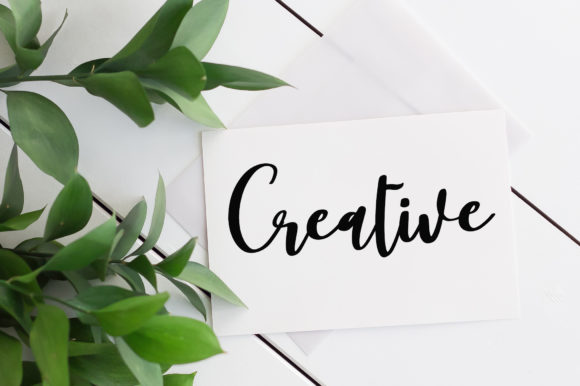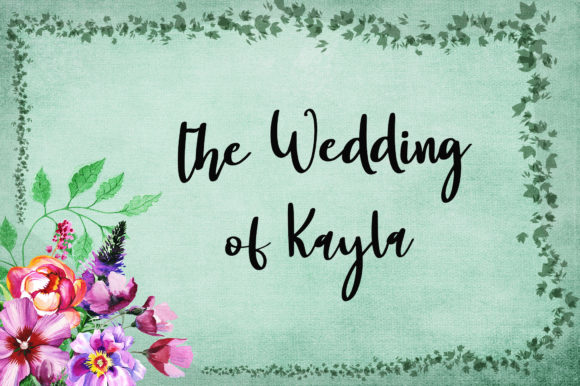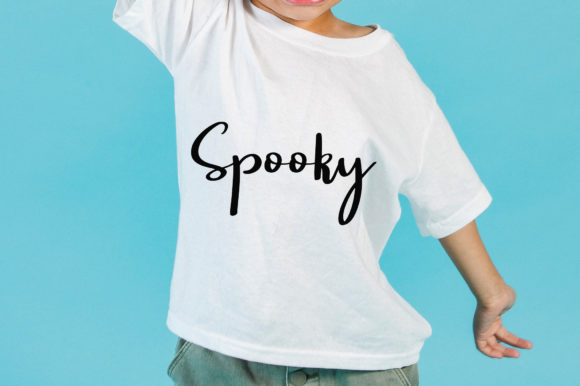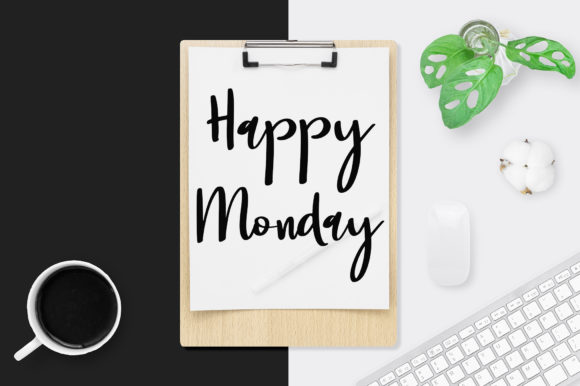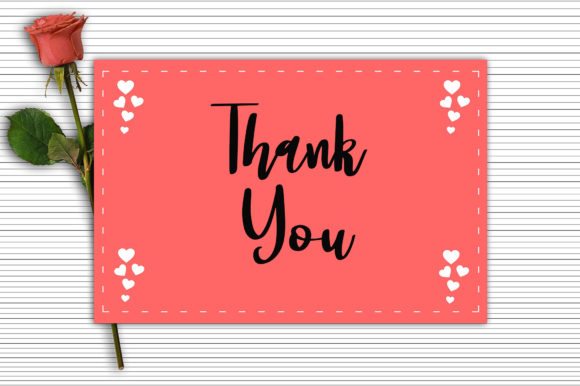
Adding a Touch of Whimsy: The Boho Font
There’s nothing quite like the feeling of rummaging through a vintage thrift store, surrounded by the musty scent of old books and the soft glow of vintage lamps. As you dig through the shelves, your fingers brush against a beautiful, handwritten invitation that catches your eye. The elegant script, the delicate flourishes, and the romantic charm all combine to transport you to a bygone era. It’s moments like these that inspire us to create, to express ourselves through art and design.
Enter the Boho Font, a stylish and incredibly elegant handwritten font that brings a touch of whimsy to any design. Whether you’re crafting wedding invitations, thank you cards, or logos, this font is sure to add a personal, handwritten touch that sets your work apart. With its PUA encoding, accessing all of the glyphs and swashes is a breeze, making it a valuable asset for designers looking to add a little extra magic to their projects.
Boho Font Key Features
- Font Family: Boho is a unique, hand-drawn script font designed to evoke a free-spirited and eclectic feel.
- Unique Characteristics: Boho features a distinctive, cursive style with swashes and flourishes, making it perfect for adding a touch of whimsy and personality to designs.
- Style Options: Boho is available in multiple styles, including regular, bold, and italic, allowing designers to customize their designs with a range of weights and styles.
Boho Font Review
Overall, I think the Boho Font is a lovely addition to any designer’s toolkit. ✨ It’s got a free-spirited, eclectic vibe that’s perfect for creative projects or brands that want to stand out from the crowd. The font is highly customizable, with a wide range of weights and styles to choose from, making it easy to create unique combinations that suit your design needs.
One of the standout features of the Boho Font is its beautiful, hand-drawn feel. ✨ The irregularities and imperfections in the font make it feel truly unique and add a touch of personality to any design. I also appreciate the font’s versatility, as it can be used for everything from headings and titles to body text and quotes.
- ⚠️ Limited availability of certain weights and styles, which can make it difficult to find the perfect combination for your design.
- ⚠️ Some users may find the font’s irregularities distracting or difficult to read, particularly in large blocks of text.
- ⚠️ The font may not be suitable for projects that require a more formal or traditional aesthetic.
Overall, I think the Boho Font is a great choice for designers who want to add a touch of personality and whimsy to their projects. With its beautiful, hand-drawn feel and high level of customizability, it’s a great addition to any designer’s toolkit. However, it may not be the best choice for every project, and users should be aware of its limitations before making a decision.
Tips for Getting the Most Out of Boho Font
To get the most out of the Boho Font, try the following:
- Use it for creative and artistic projects.
- Combine it with other fonts for a unique look.
- Experiment with different font sizes and styles.
- Use it for titles, headings, and emphasis.
The Boho Font is perfect for:
- Artistic and creative projects. Alternative Fonts to Boho Font
- Pick out watercolor colors that match the warm tones of the font.
- Use hand-drawn maps and illustrations to add a sense of adventure and freedom.
- Include blank pages for doodling and writing notes, and add a few inspirational quotes in the Boho Font for good measure.
- Use a combination of uppercase and lowercase letters in the Boho Font to add a sense of movement and flow.
- Pick out floral patterns and lace that match the soft, feminine tones of the font.